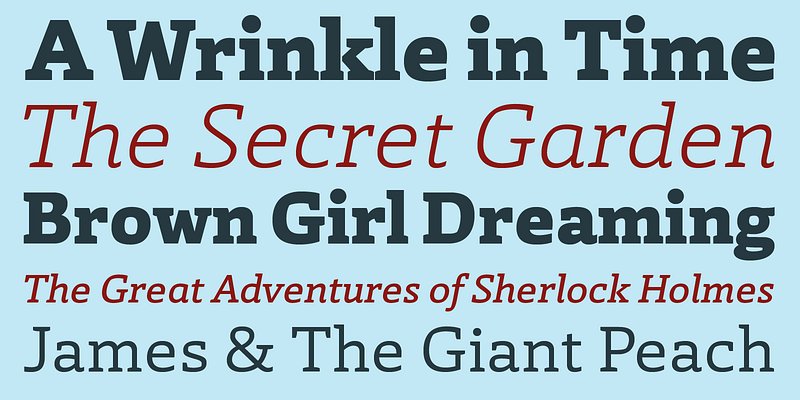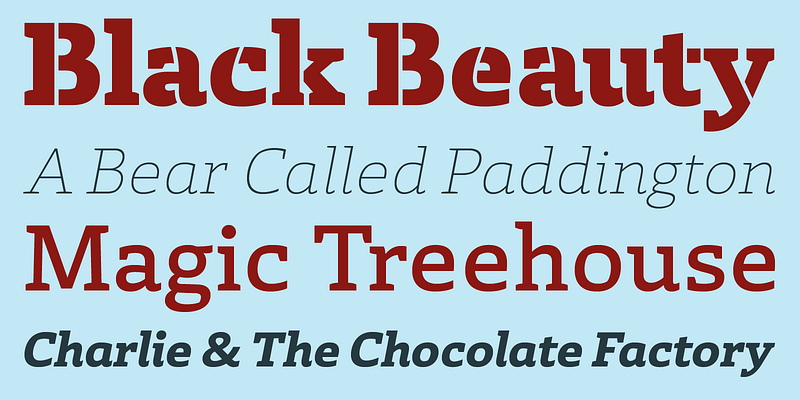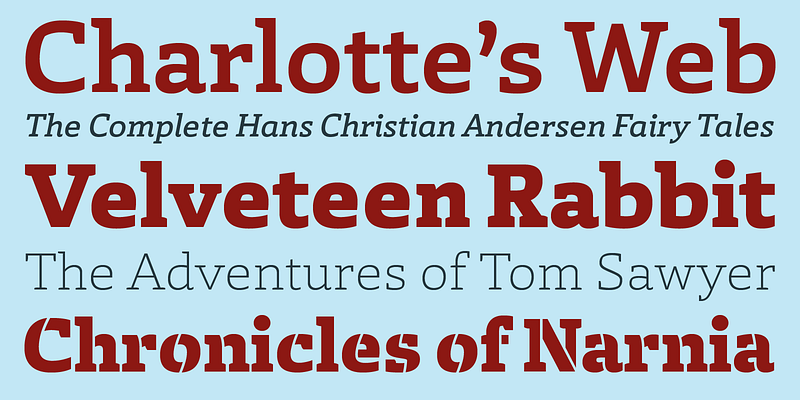
Laski Slab is a comprehensive suite of 20 fonts conceived for editorial purposes. Originally developed for an online children’s magazine, Laski Slab was later expanded into a multipurpose type family.